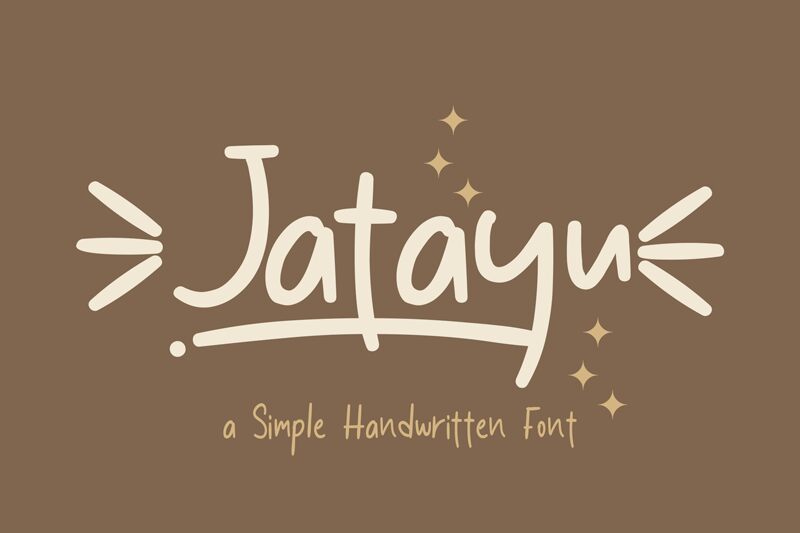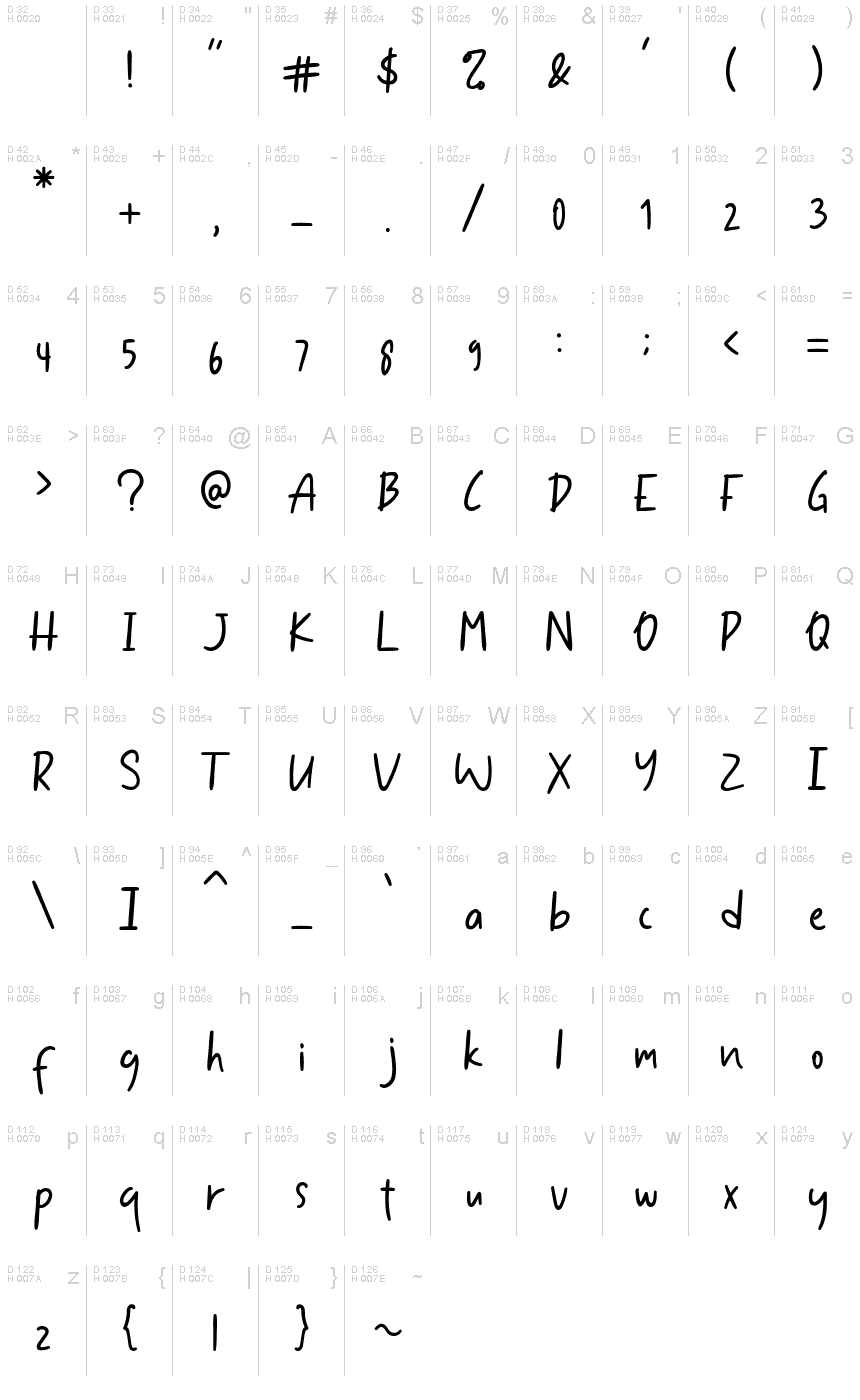
Jatayu
Jatayu, crafted by Andang Prasetyo, brings the warmth and authenticity of handcrafted style to your designs with its semi-light handwritten aesthetic. Its simplicity is its strength, offering versatility for an array of projects where a personal touch is paramount. With unique lowercase characters that add a natural feel, Jatayu is not just another font-it's a gateway to making your creative work stand out.
Whether you're designing product packaging with an organic edge, creating memorable branding materials, setting the tone in lifestyle magazines, elevating social media visuals, or composing heartfelt invitations for weddings, Jatayu carries a gentle elegance that speaks directly to the viewer's senses.
Moreover, this font shines in its user-friendly approach; being PUA encoded ensures you can effortlessly unlock all of its expressive glyphs and ligatures. Jatayu isn't just visually appealing-it's designed for seamless integration into your projects, ensuring that every word not only looks beautiful but also conveys your message powerfully above any background.